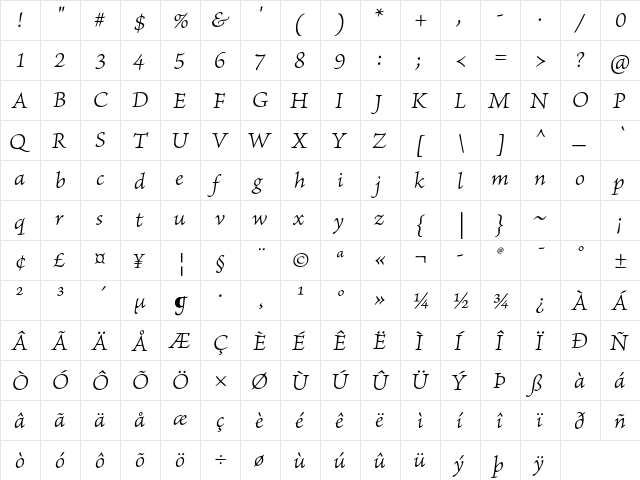
Brioso Pro Light Italic Caption
| Designer | Robert Slimbach |
Design Context for Brioso Pro Typeface
Brioso Pro is a composed and adaptable typeface that performs quietly and consistently across a wide range of design contexts. Its italic angle brings a sense of urgency and motion to the letterforms. Its slender proportions lend an understated elegance to any composition.
Pro Tip: Use Brioso Pro for emphasis, pull quotes, and subheadings where its slanted energy can add rhythm to the layout.